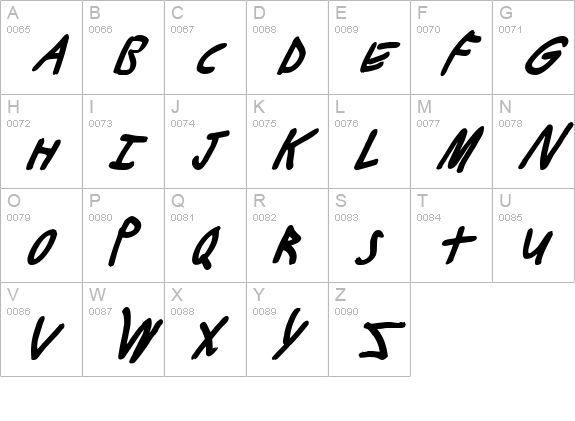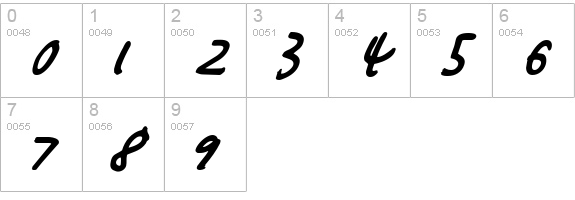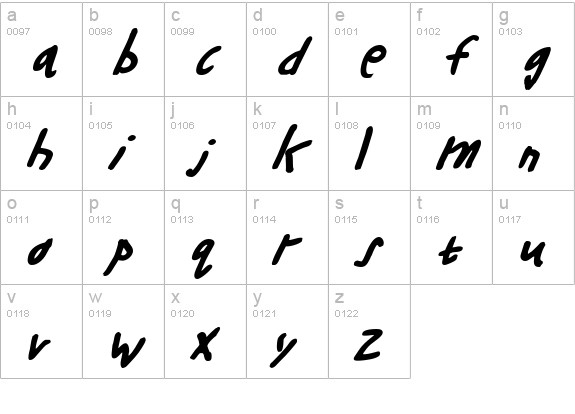
Buttons the Bear Italic is a distinctive, italic variant in the Buttons typeface family \xE2\x80\x94 well suited to design and typography projects.
Buttons the Bear Italic font is a charming and playful typeface that exudes a sense of whimsy and fun. With its slightly slanted and italicized design, this font adds a touch of personality and uniqueness to any project. The rounded edges and soft curves give it a friendly and inviting feel, perfect for a variety of creative applications. Buttons the Bear Italic font is not only stylish and eye-catching but also versatile and easy to read. Whether you're designing a poster, greeting card, logo, or any other project, this font will make your text stand out in a delightful way. Best of all, Buttons the Bear Italic font is free to download at FontsMarket.com. So go ahead and add this adorable font to your collection without any cost. Let your creativity flow with Buttons the Bear Italic font and bring a smile to your audience's faces.